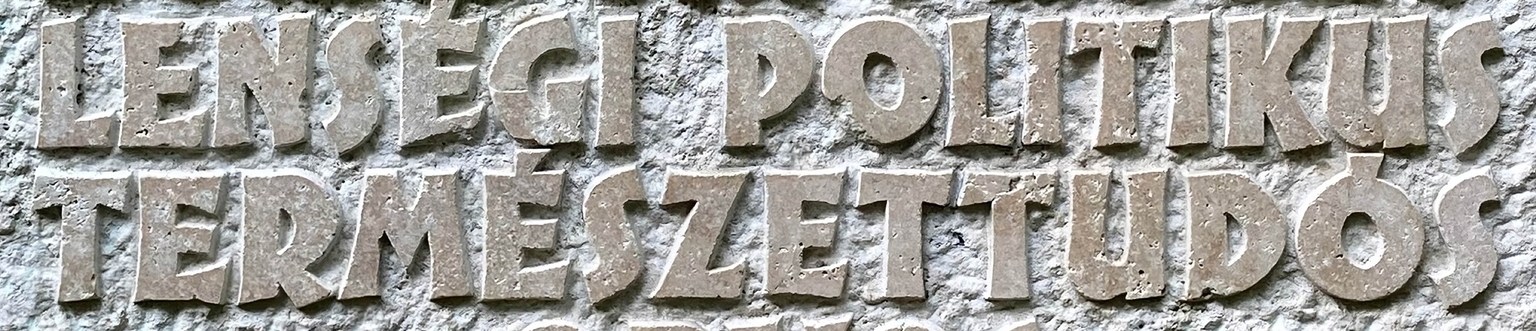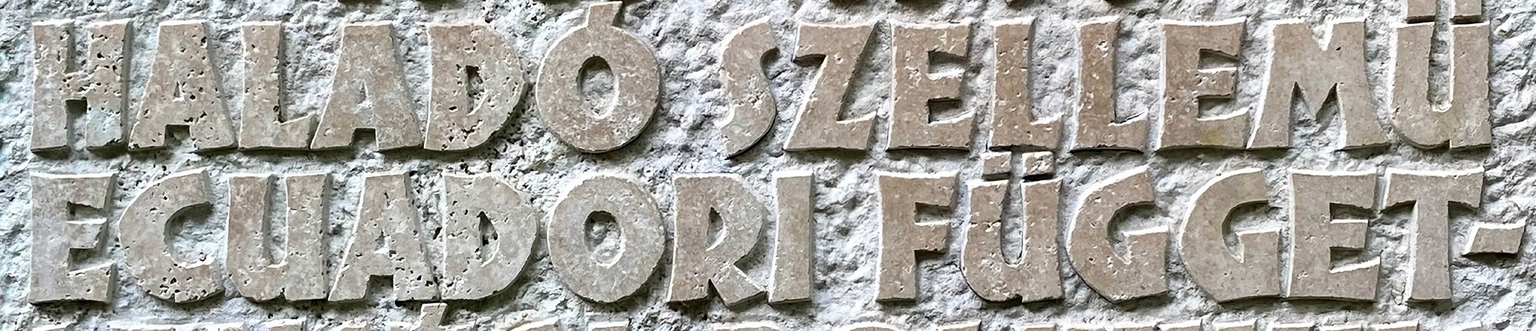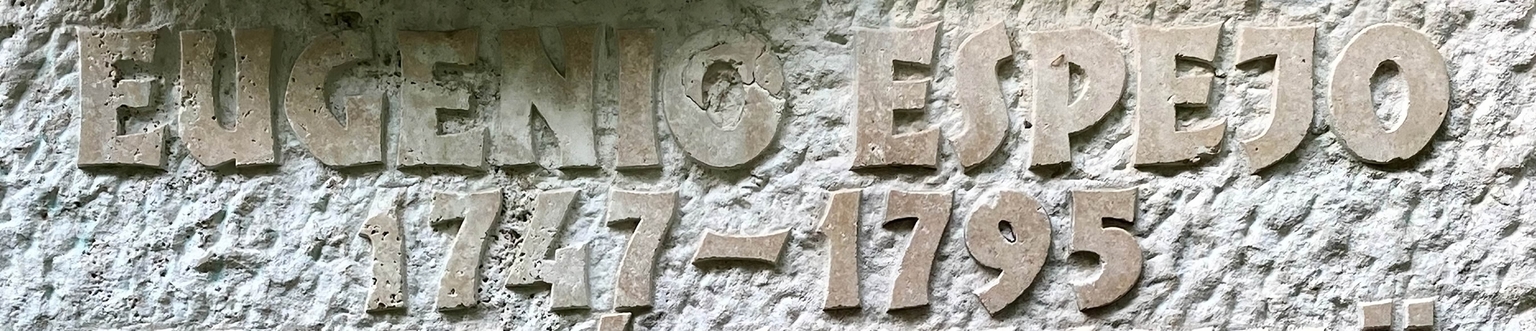
Politikus
Politikus is a display typeface designed by Ramiro Espinoza and inspired by the carved lettering found on a monument dedicated to the politician and naturalist Eugenio Espejo (1747–1795), located in Városmajor Park in Budapest, Hungary. The original inscription combines solidity and restraint with clear expressionist traits and may reflect the influence of Rudolf Koch’s reed calligraphy.
Espinoza translated these qualities into a digital typeface, refining the forms and expanding the character set while preserving the rhythm and presence of the original letters. Politikus emphasizes emotion and dynamism, making it suitable for posters, editorial design, logos, signage, and websites that benefit from a energetic typographic tone.